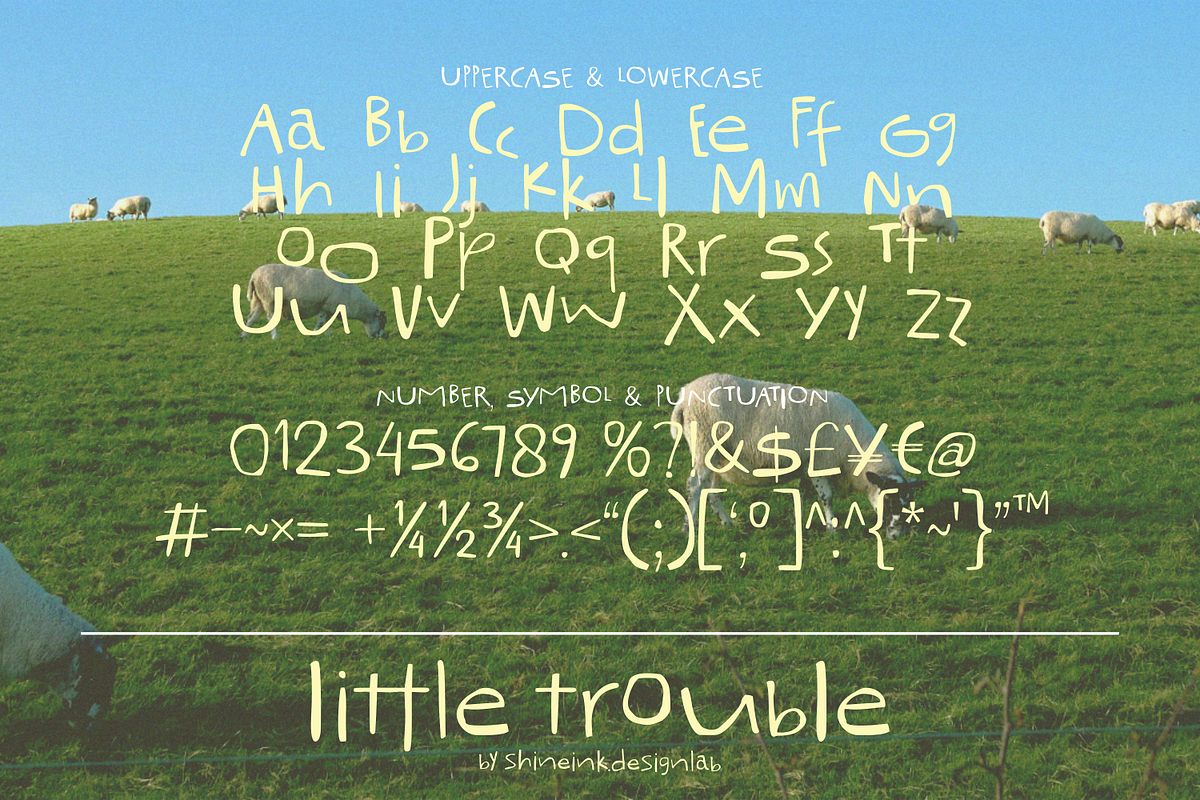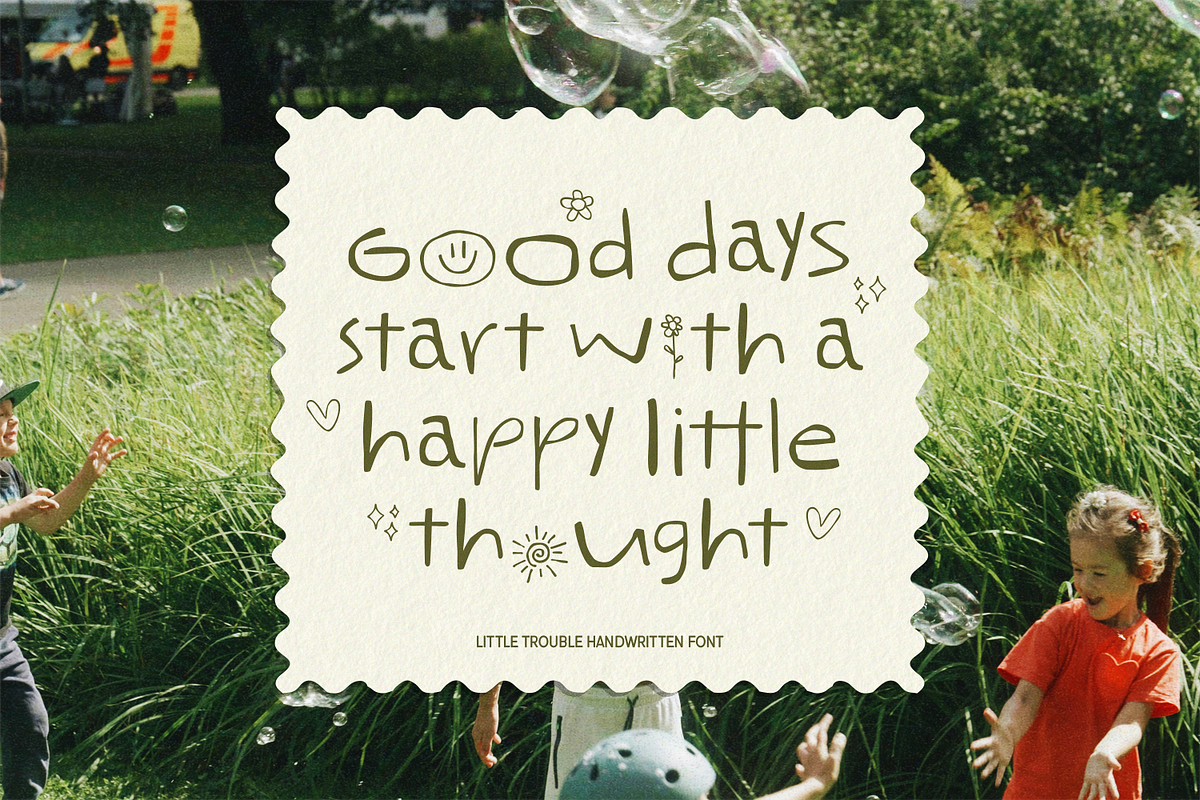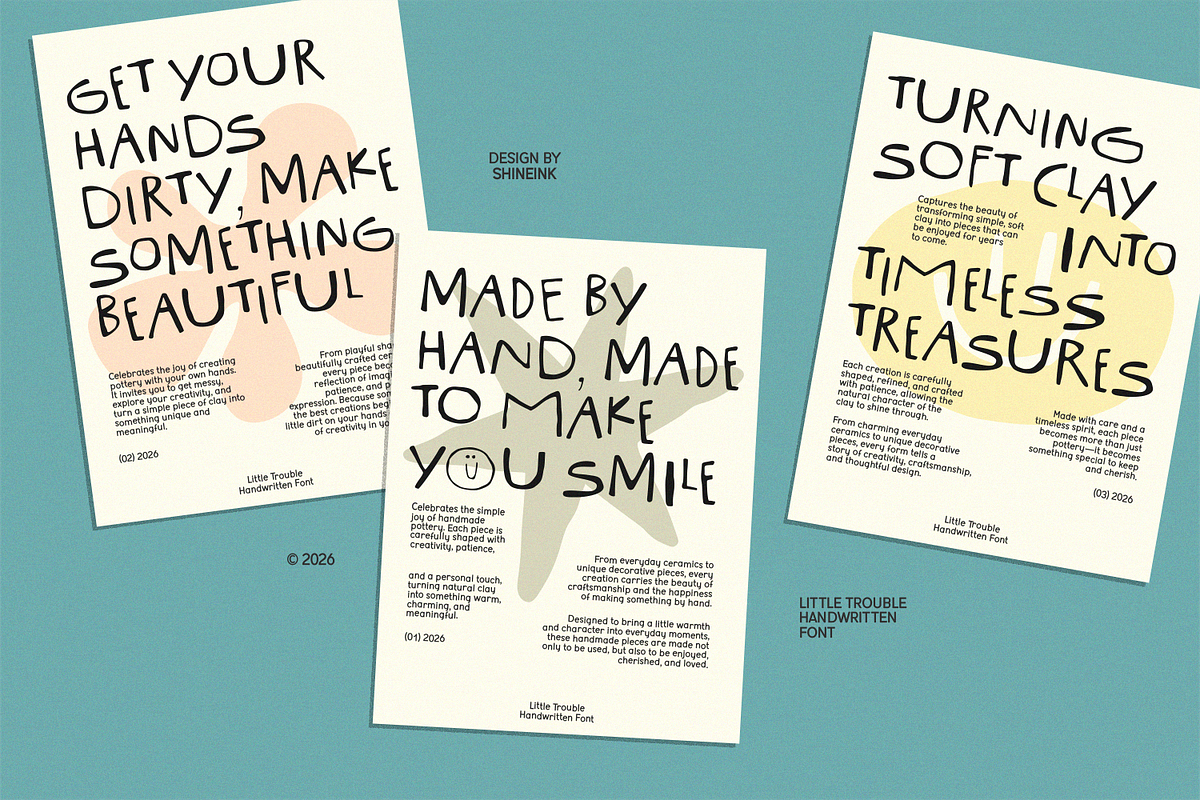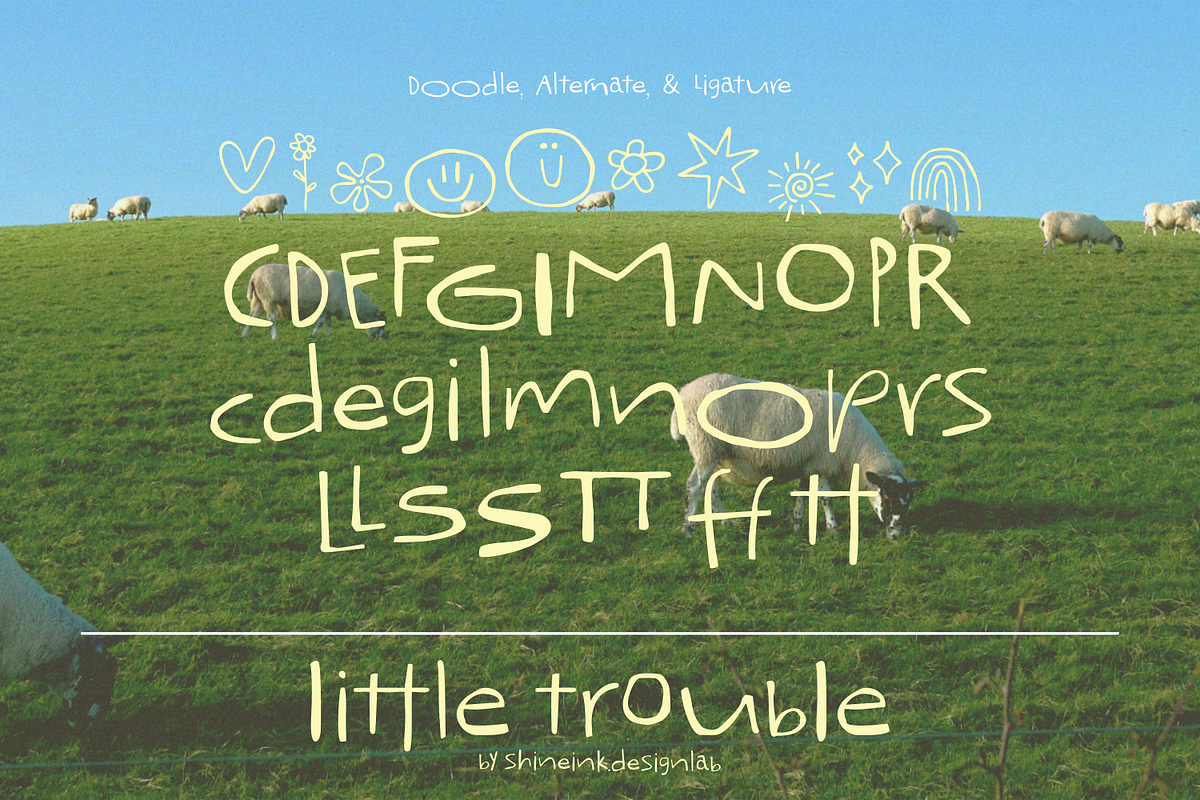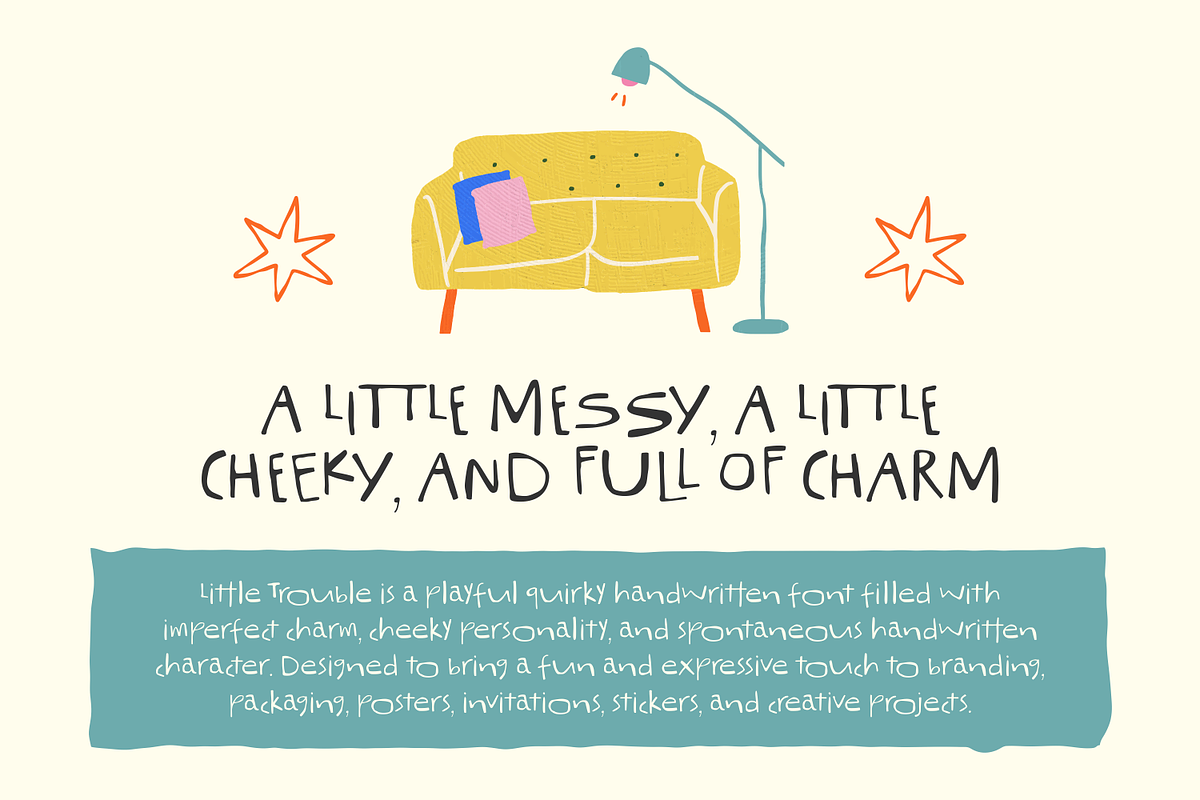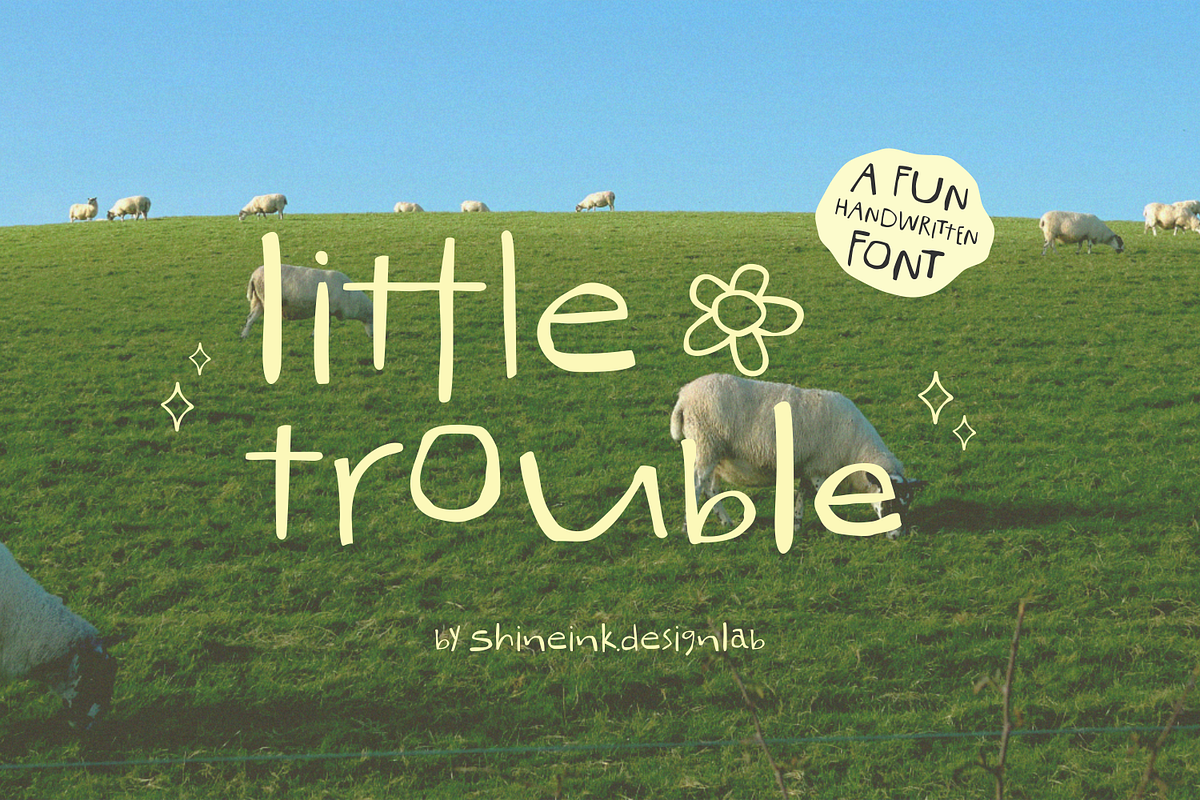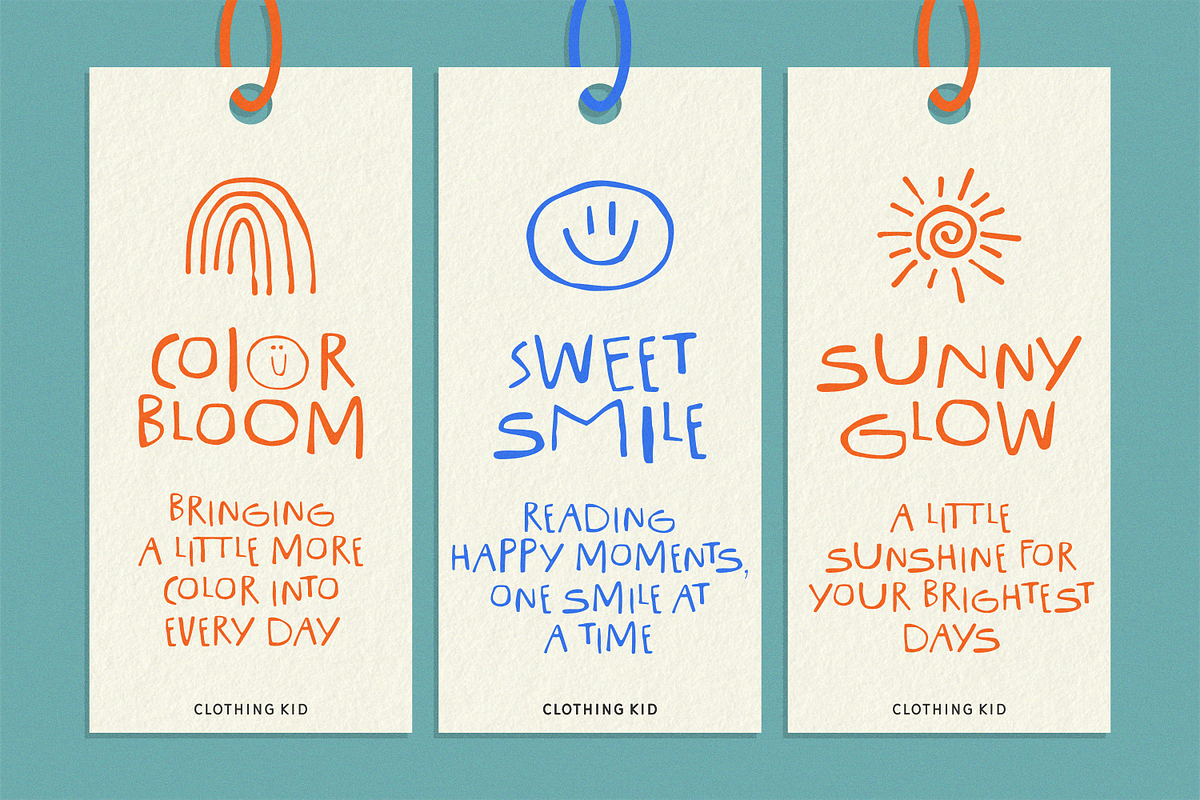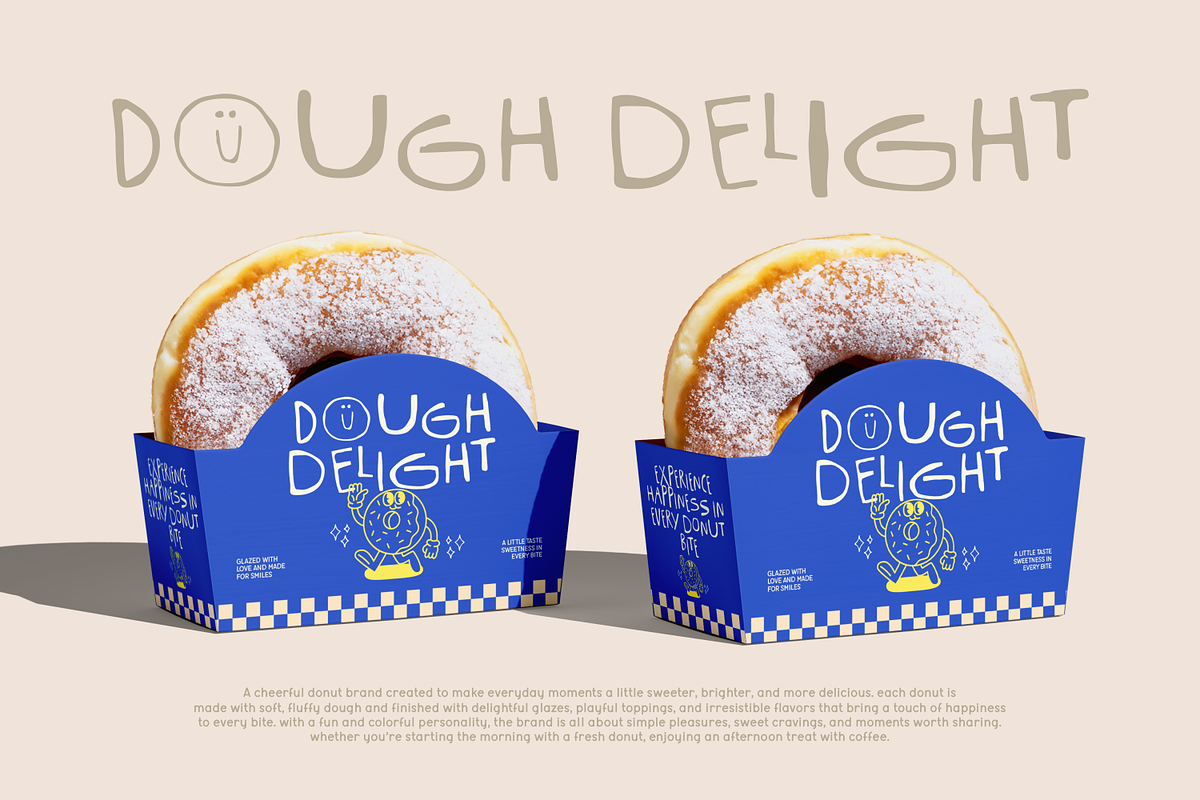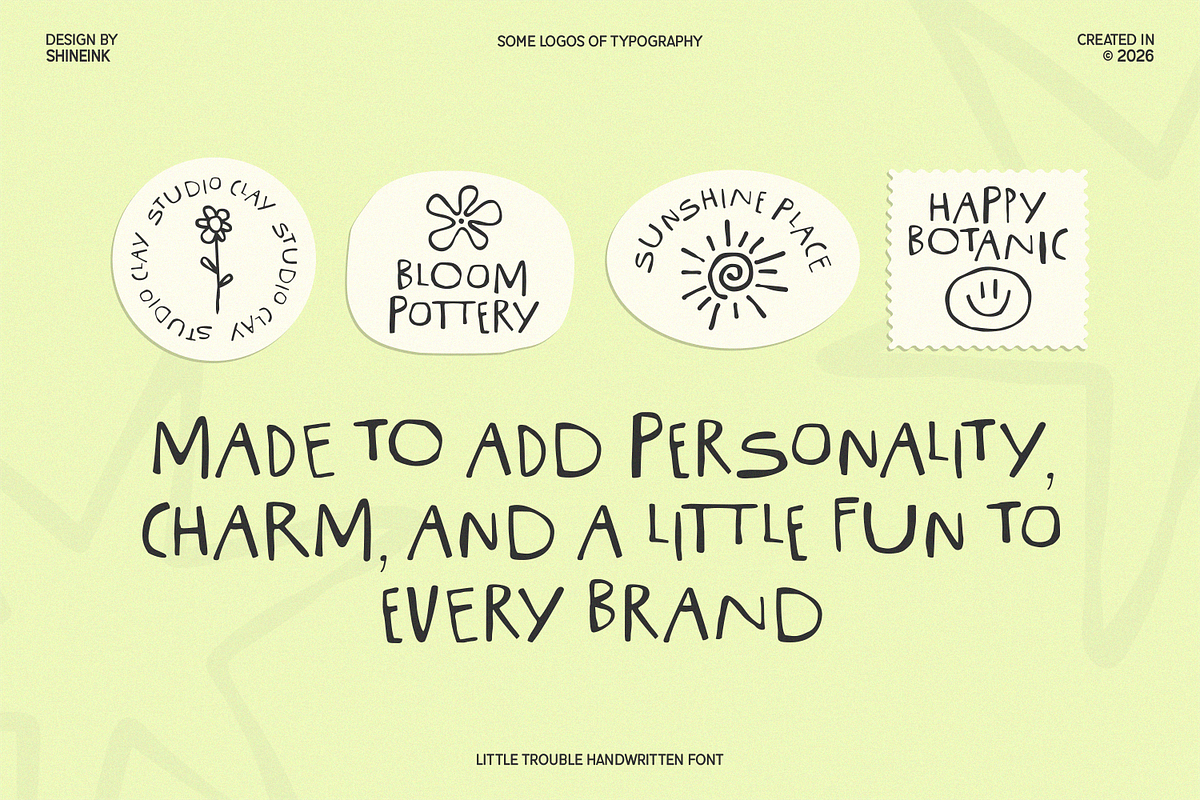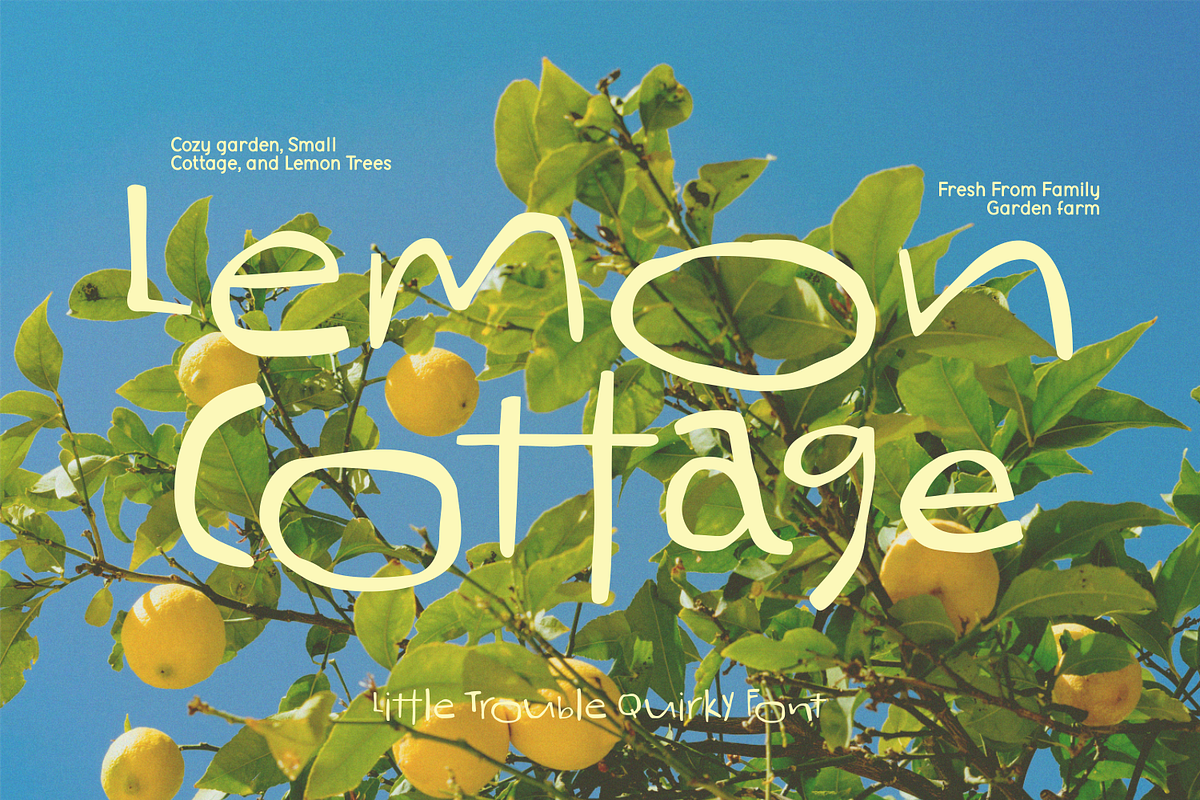
Little Trouble – Quirky Font
Little Trouble is a playful handwritten font with a charmingly imperfect personality. Designed with loose, expressive strokes and a natural handmade feel, it brings a little fun, warmth, and character to every word.
Perfect for projects that need a friendly and carefree touch, Little Trouble works beautifully for branding, packaging, posters, apparel, stationery, invitations, children's projects, social media graphics, stickers, labels, and creative advertising.
Its casual handwritten character makes it easy to create designs that feel personal, joyful, and effortlessly handmade.
Lowercase and Uppercase
Accented characters
Multiple Languages Supported
Unique Doodle, Alternate, Ligature
Little Trouble is made for those little imperfect moments that make life more fun.